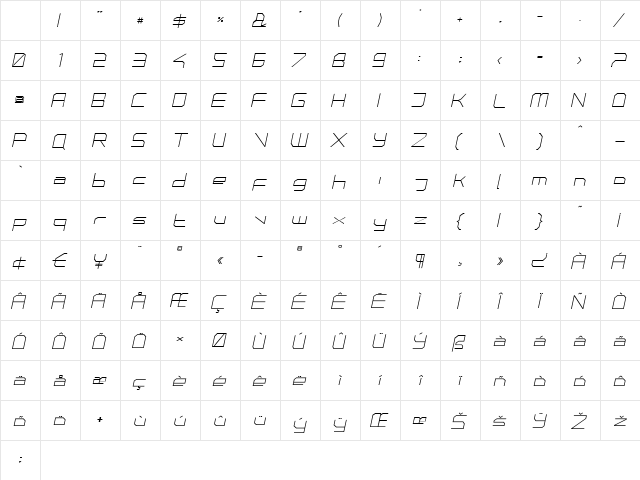
PhutureSqrdClsd Italic Free Font
PhutureSqrdClsd Italic
Design Context for PhutureSqrdClsd
PhutureSqrdClsd is a composed and adaptable typeface that performs quietly and consistently across a wide range of design contexts. The slanted form adds forward momentum and visual energy.
Pro Tip: Use PhutureSqrdClsd for emphasis, pull quotes, and subheadings where its slanted energy can add rhythm to the layout.